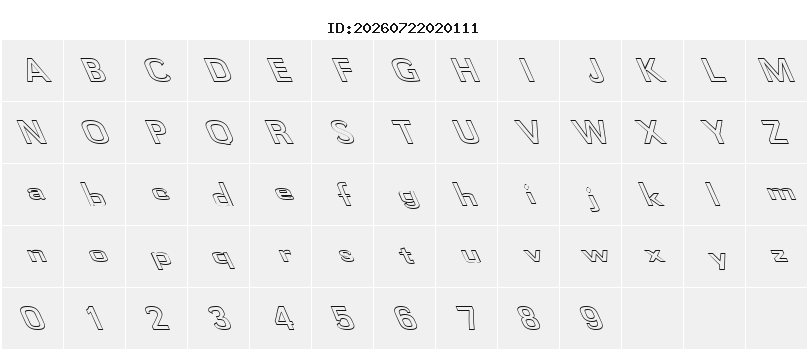
FZ BASIC 58 HOLLOW LEFTY.ttf is a modern, elegant sans-serif font designed for ultimate readability and visual harmony. Perfect for branding, headlines, web design, and print materials.